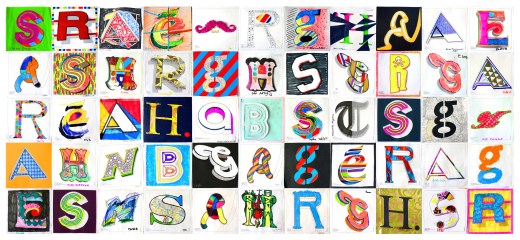
Type Tasting global typography at SXSW
Type Tasting Global Lettering Workshop
“Get creative whilst exploring and reinterpreting the typography found in street signs and signage from around the world.” We’re expanding on the Dalston Reimagined idea from last summer and take it global. Are there patterns to be found on a larger scale, what does the signage reveal about an area, a city or a country when compared?
Type Tasting Typography Workshop at SXSW
Why typography? Because it’s such an important communication tool—it is what our voices look like. We interpret it instinctively and use it in our everyday lives as a navigation tool: whether it’s choosing which hair salon to walk into or recognising a familiar chain of restaurants when we’re abroad. We make decisions based on the fonts we encounter on a daily basis, but how often are we aware that we’re doing this?
The variation of typography found in signage styles reflects the social and historical development of an area. In this workshop we aim to explore and build up a visual representation of global typography trends.
Participants will be provided with templates of letters taken from signage found around the globe. They will be invited to customise the letters using a range of markmaking tools and collage materials. These will be displayed on the wall to create an exhibition of reinterpreted global signage that will grow throughout the day.
Type Tasting Typography Workshop at Pick Me Up
Physical play and exploration are vital to the creative thinking process as these engage all of the senses. These work together to create new associations and ideas and often prompt more innovative thinking. If you’re having an intense day of information gathering then taking a break to do something tactile will give your brain the opportunity to process and absorb.
• Creative refuelling session
• Learn about or refresh your knowledge of typography
• Explore global typography trends found in signage
• Contribute to the exhibition of letters that will grow throughout the day
• Enjoy, relax and socialise
Sarah Hyndman runs graphic design company With Relish and launched Type Tasting in February 2013 with an evening of typographic swearing ’n’ cussing. She has an MA in Typo/Graphics from the London College of Communication where she also taught for six years alongside her commercial practice.
Her area of interest is typography as we experience it in the real world. She leads Type Safaris, which explore signage in areas of London, and runs workshops that employ different sensory experiences to inspire typographic creativity. She also gives demonstrations and talks on how we use typography to navigate and reflect our lives.
Type Tastings range from large scale, public events, such as the collaboration with the London Design Festival at the V&A Museum in September, to bespoke workshops and seminars. Sarah has been interviewed on the BBC’s Today and The Arts Hour and has been commissioned to write a book.